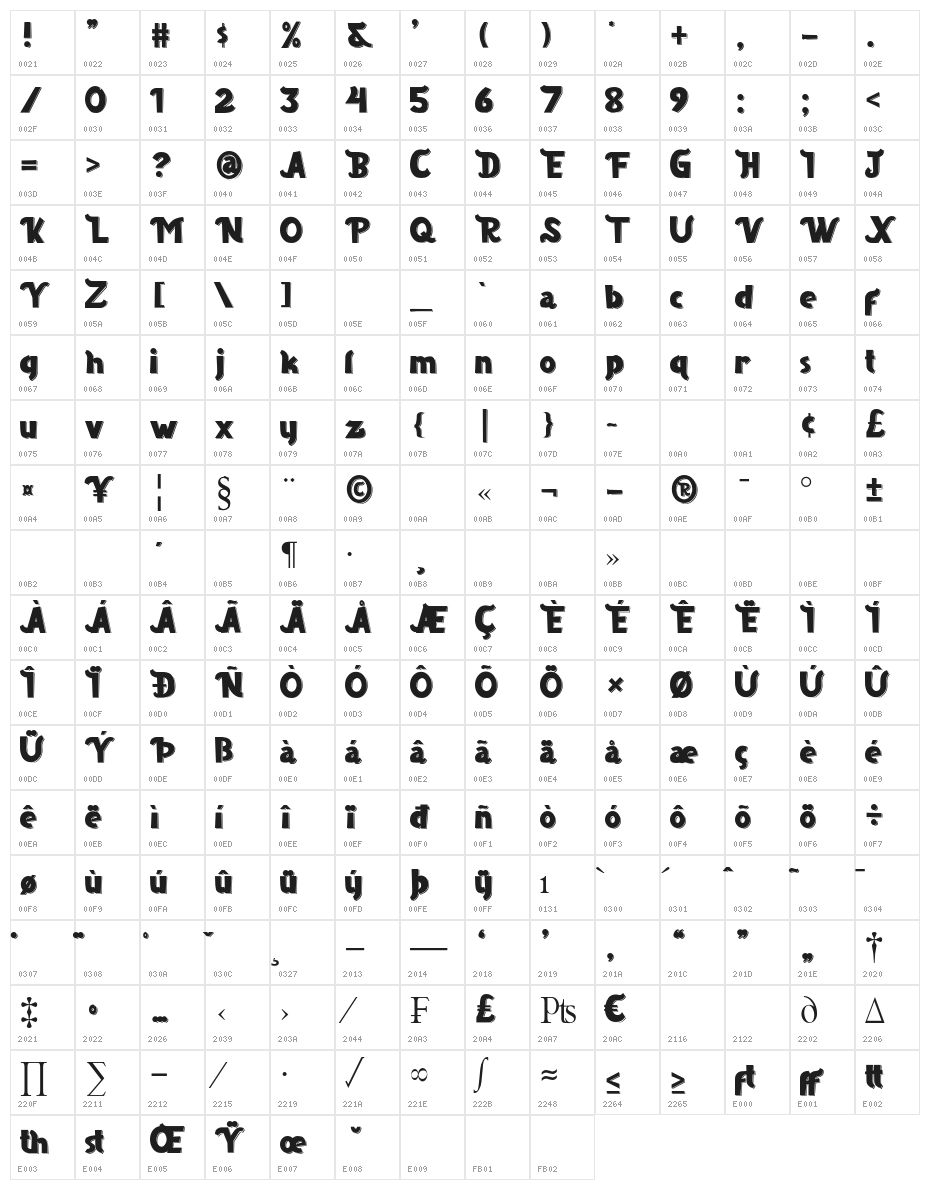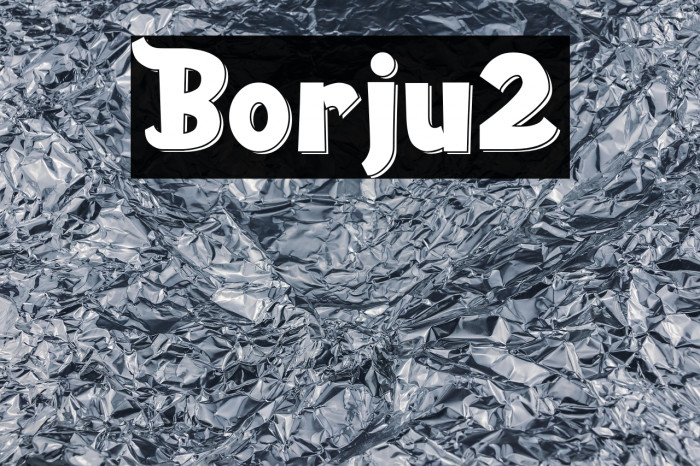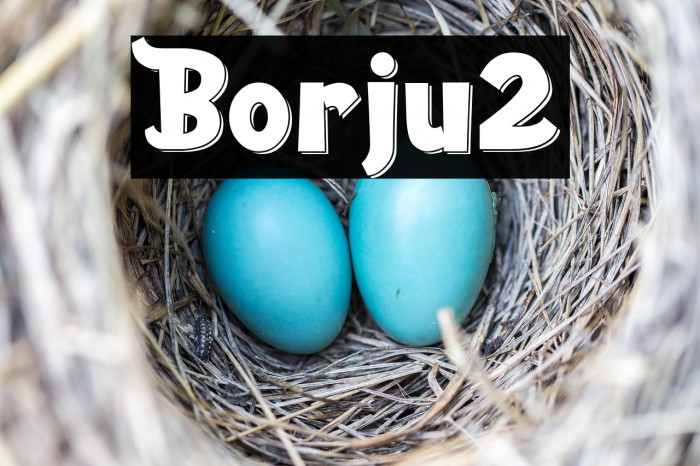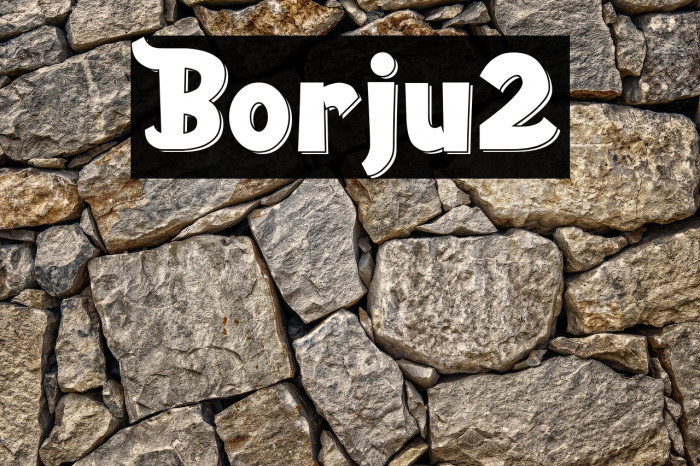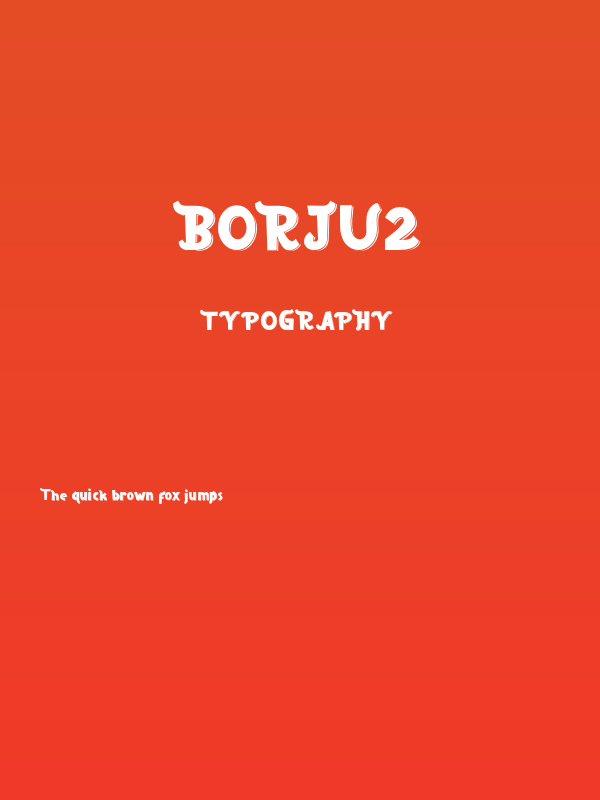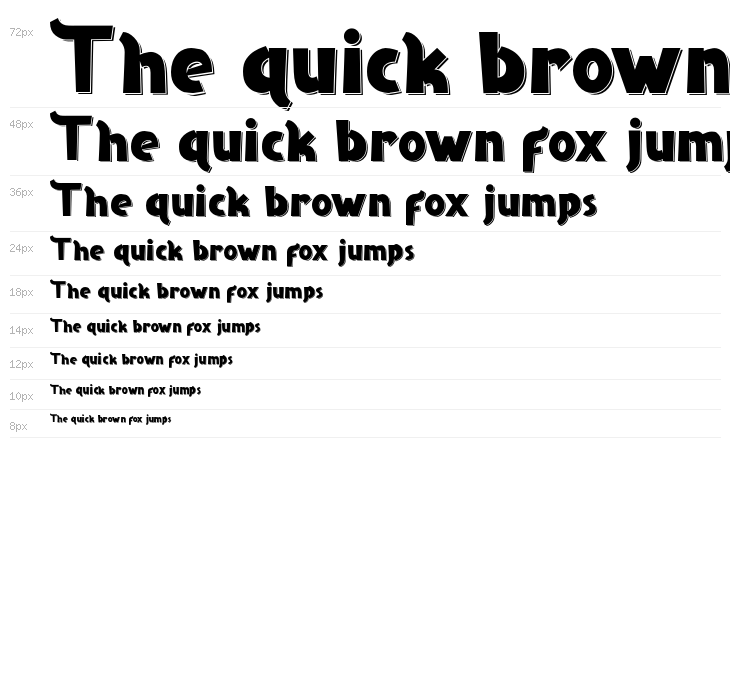
Borju2 Font
Borju2 Description
This font features a bold and playful style with a distinct shadow effect that adds depth and dimension to each character. The uppercase letters are robust and slightly whimsical, while the lowercase letters maintain a consistent weight and style, contributing to a cohesive look. The numerals are equally bold, ensuring they stand out in any design. Special characters are included, maintaining the same playful and bold aesthetic. The overall design is eye-catching and suitable for projects that require a fun and engaging typeface.
| Overall Style | Playful, Decorative |
| Proposed Projects | Ideal for children's books, playful branding, posters, and creative advertisements. |